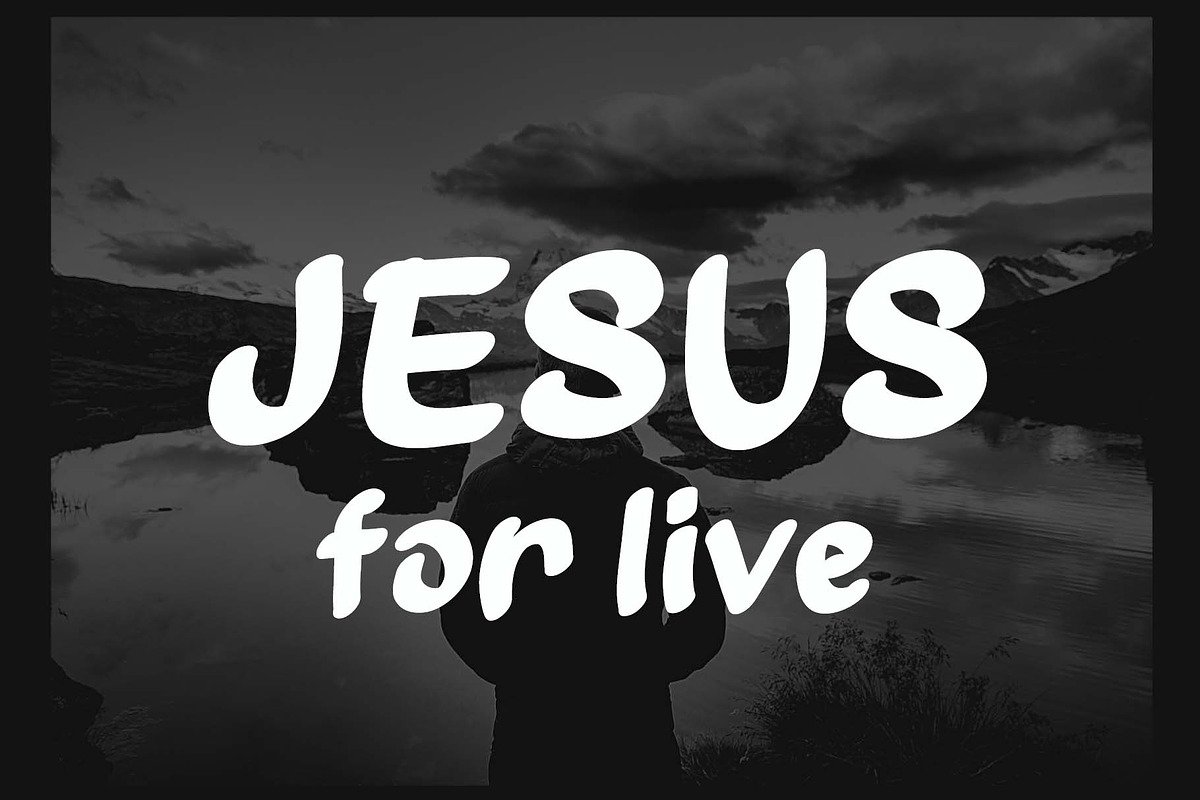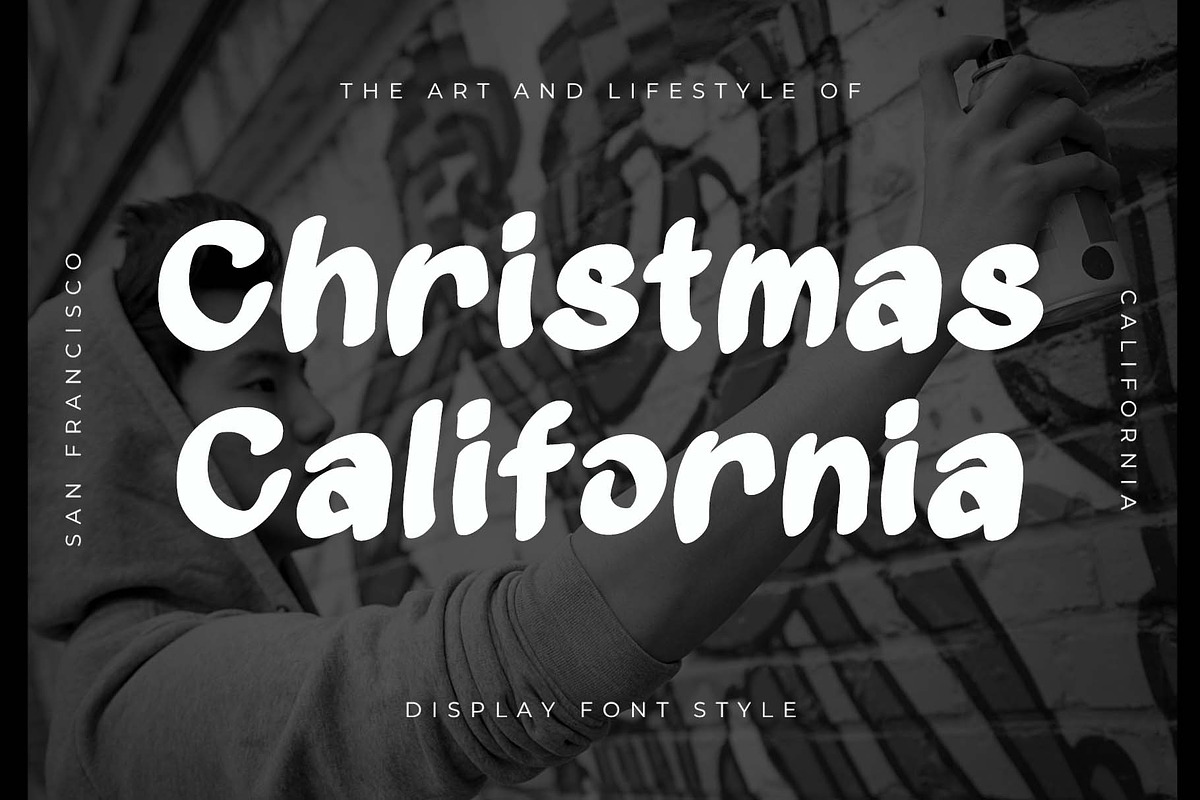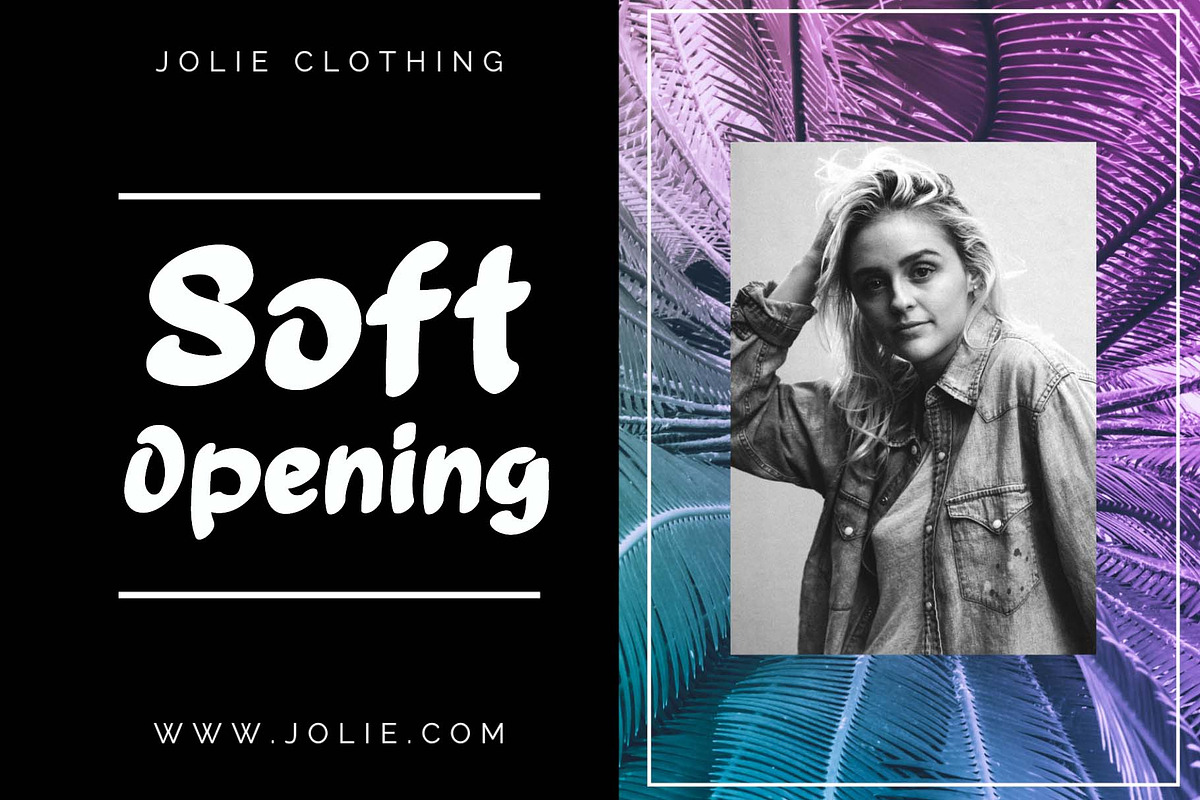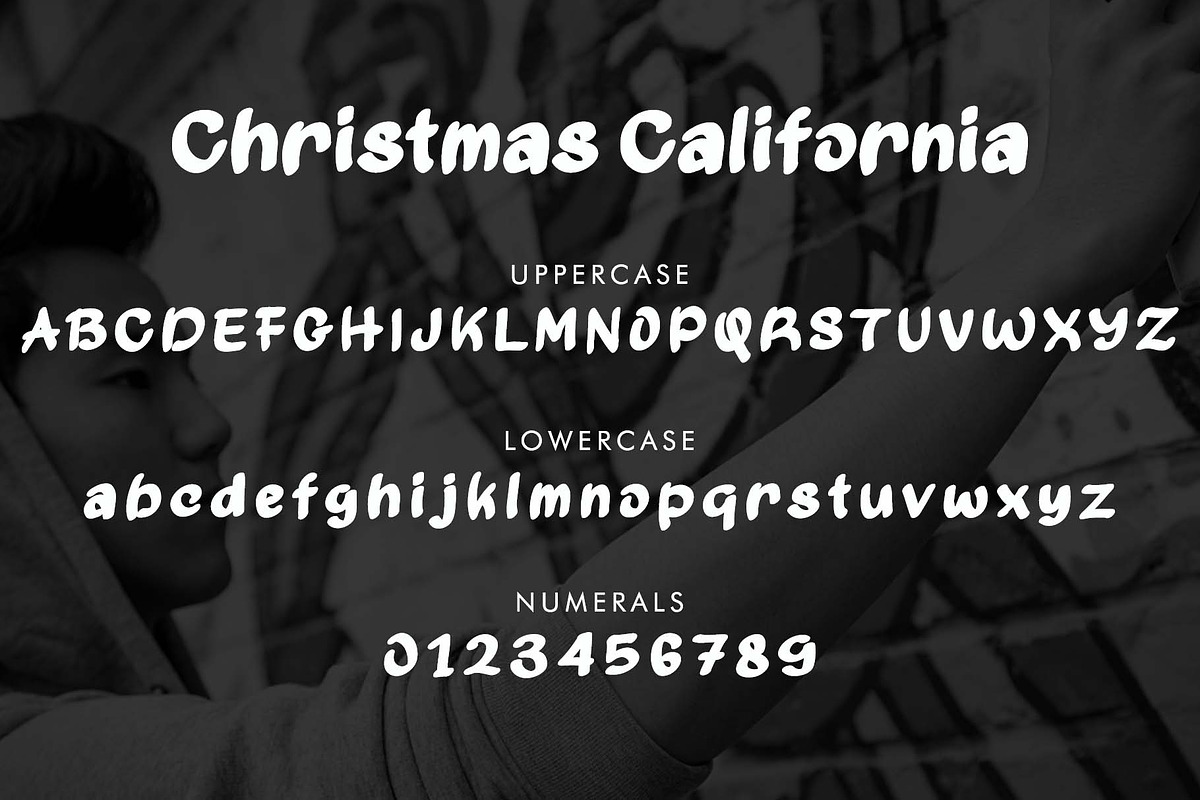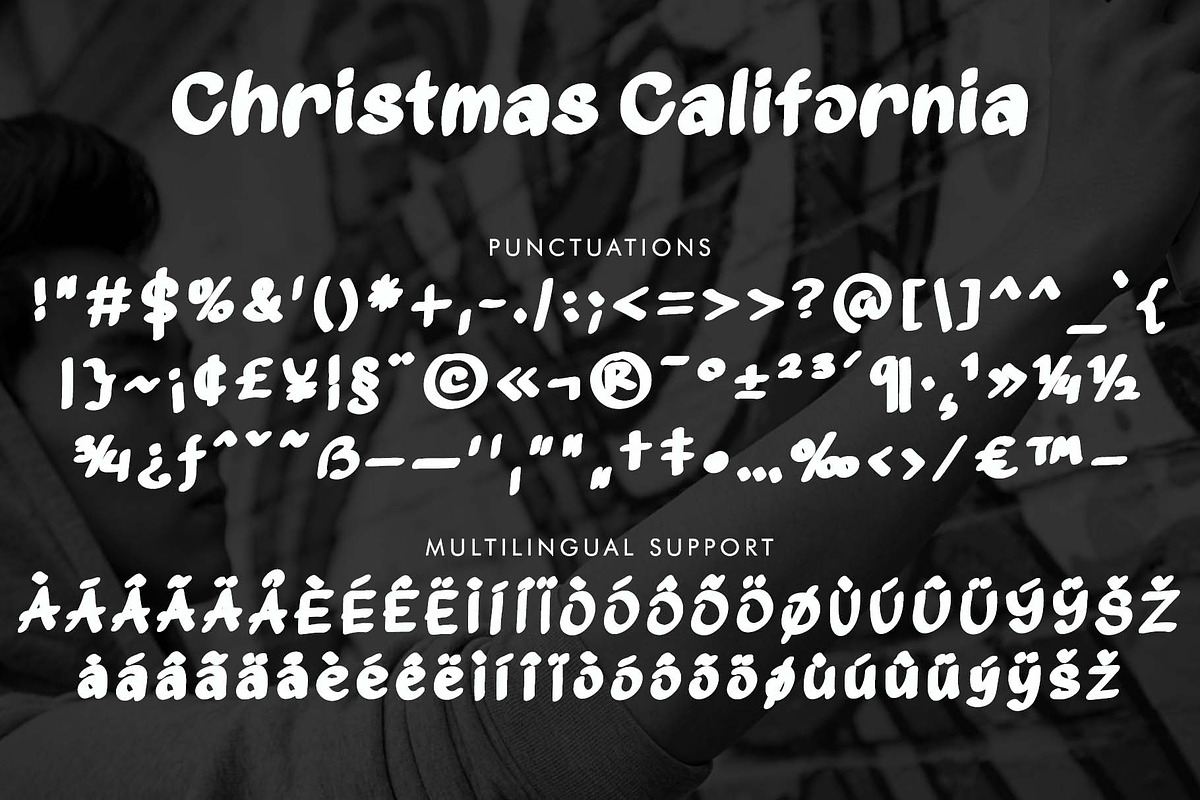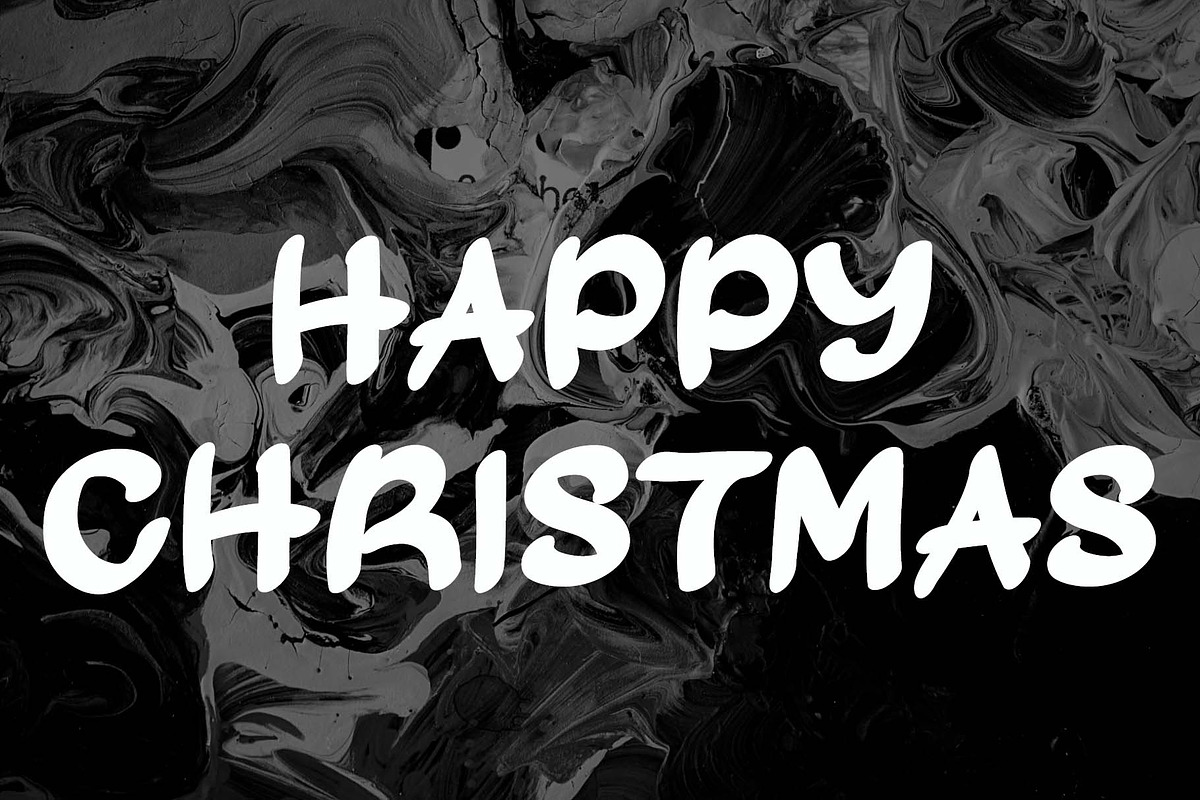
Christmas California
"Christmas California" is an elegant display font. It features uppercase and lowercase letters, numbers, punctuation, and multilingual support. Perfect for Christmas, invitations, Thanksgiving, Procreate, summer, spring, logos, tattoos, graffiti, branding, t-shirts, mockups, fall, weddings, photography, gifts, holidays, stickers, birthdays, and more.